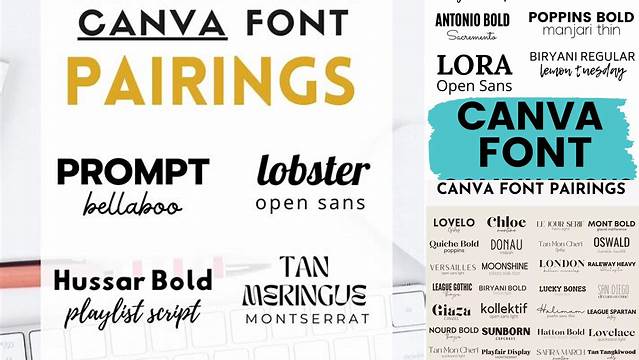
Top Canva Fonts For 2026: Design Trends
Hey guys! Are you ready to dive into the exciting world of typography and discover the hottest Canva fonts that will be trending in 2026? As designers, we know how crucial the right font can be to making your designs pop and convey the perfect message. So, let's explore the fonts that will be all the rage in the coming years. Get ready to elevate your design game!
1. Best Serif Fonts for Canva in 2026
When it comes to adding a touch of elegance and classic appeal, serif fonts are your go-to. In 2026, we're going to see a resurgence of sophisticated serifs with a modern twist. Think fonts that have clean lines and subtle serifs, making them perfect for both headings and body text. These fonts will bring a timeless yet contemporary feel to your designs. Imagine using a beautifully crafted serif font for a wedding invitation or a high-end branding project. The key is to choose a serif that feels both familiar and fresh, blending tradition with modernity. Keep an eye out for serifs that offer a variety of weights and styles, allowing you to create a cohesive and versatile design. By incorporating these best serif fonts for Canva in 2026, you'll be setting your designs apart with a touch of timeless sophistication. This will ensure your projects have that polished, professional edge that clients and audiences will love.
2. Top Sans-Serif Fonts on Canva for 2026
Sans-serif fonts are the workhorses of the design world, offering clean, modern lines that are perfect for a variety of projects. For 2026, expect to see sans-serif fonts that balance simplicity with personality. Think fonts that are highly legible but also have unique characteristics that make them stand out. These might include subtle variations in letterforms or a slightly condensed or expanded width. The versatility of top sans-serif fonts on Canva for 2026 makes them ideal for everything from website headers to mobile app interfaces. Look for fonts that come in multiple weights, from light to bold, so you can create visual hierarchy and emphasis in your designs. A well-chosen sans-serif can convey a sense of clarity and modernity, making your message clear and impactful. Whether you're designing a sleek corporate brochure or a vibrant social media campaign, the right sans-serif font will be your trusty companion. So, get ready to embrace the clean and contemporary with the top sans-serif options that Canva will have to offer in 2026!
3. Trending Script Fonts for Canva in 2026
Script fonts are perfect for adding a touch of personality and flair to your designs. In 2026, we'll see a mix of elegant, flowing scripts and more playful, hand-drawn styles. These fonts are ideal for invitations, logos, and branding projects where you want to convey a sense of warmth and authenticity. However, the key to using script fonts effectively is readability. Choose scripts that are easy to read, even at smaller sizes, and avoid using them for large blocks of text. Instead, use them sparingly to highlight key words or phrases. The best trending script fonts for Canva in 2026 will offer a balance of style and practicality, allowing you to add a personal touch without sacrificing clarity. Imagine using a beautiful script font for a wedding invitation or a thank-you card – it can instantly elevate the design and make it feel more special. So, get ready to add some handwritten charm to your projects with the script fonts that will be making waves in 2026!
4. Popular Display Fonts in Canva for 2026
Display fonts are the attention-grabbers of the typography world, designed to make a statement. In 2026, expect to see bold, impactful display fonts that are perfect for headlines, posters, and branding materials. These fonts often have unique characteristics, such as unusual letterforms or decorative elements, that make them stand out. However, display fonts should be used sparingly, as they can be overwhelming if used too much. Pair them with a simpler font for body text to create a balanced design. The popular display fonts in Canva for 2026 will range from futuristic and geometric to vintage and quirky, offering a wide range of options to suit different design styles. Think about using a bold display font for a promotional poster or a website header – it can instantly capture the viewer's attention and convey the message with impact. So, get ready to make a splash with the striking display fonts that will be trending in 2026!
5. Best Font Combinations for Canva in 2026
Choosing the right font combination can make or break a design. In 2026, the key will be to find fonts that complement each other, creating a visual harmony that enhances your message. A classic combination is pairing a serif font with a sans-serif font, using the serif for headings and the sans-serif for body text, or vice versa. This creates a nice contrast while maintaining readability. Another approach is to use different weights and styles of the same font family, such as a bold heading with a light body text. The best font combinations for Canva in 2026 will be those that are both visually appealing and functional. Think about the overall tone and style of your design and choose fonts that reflect that. For example, a modern design might pair a clean sans-serif with a minimalist serif, while a more traditional design might use a classic serif for both headings and body text. So, get ready to mix and match your fonts to create stunning designs that are both beautiful and effective!